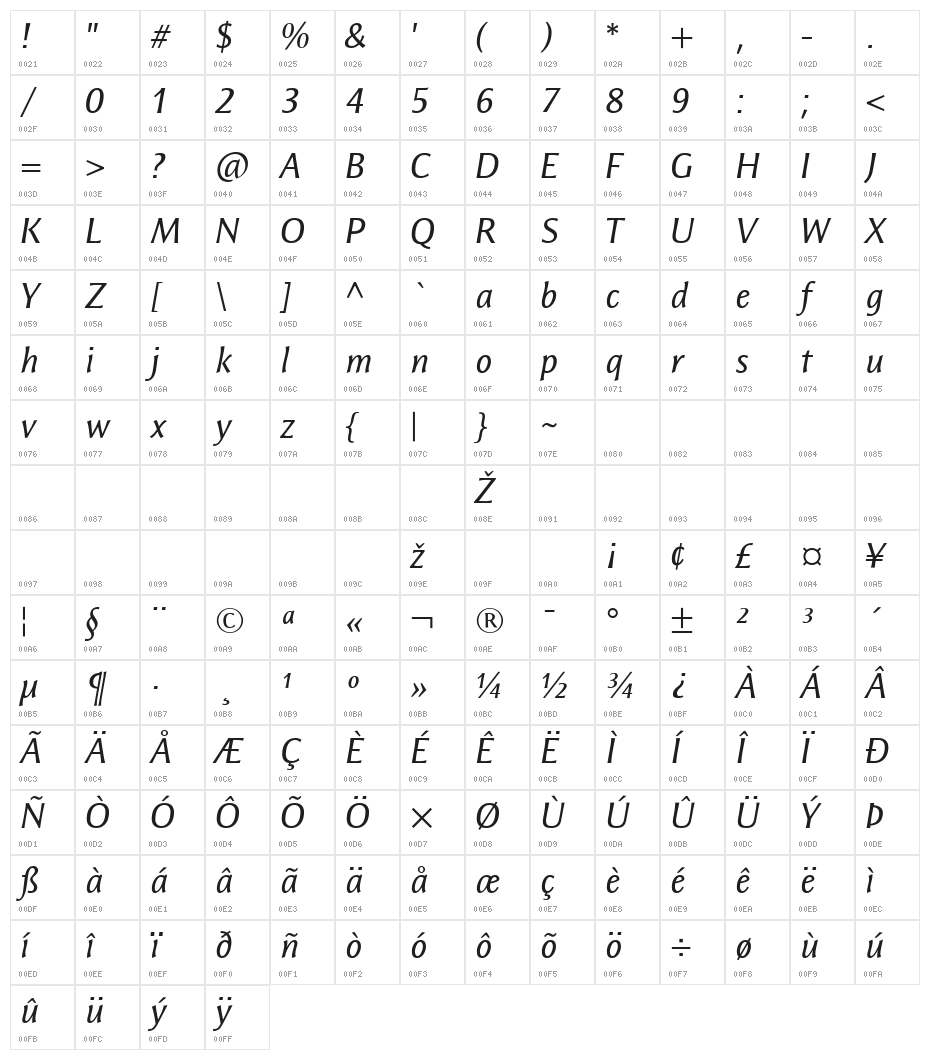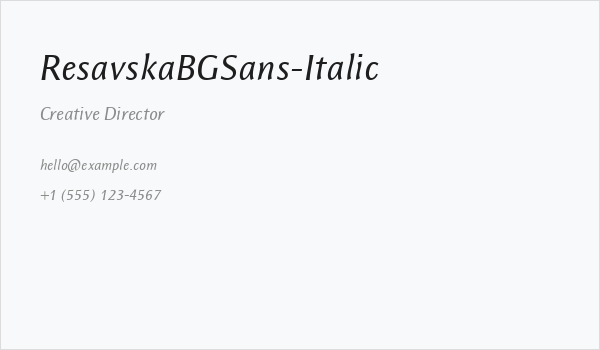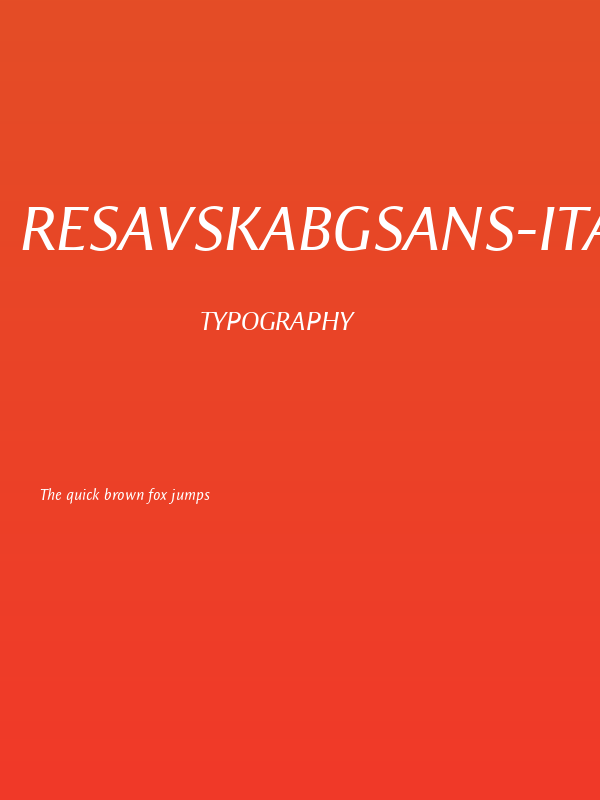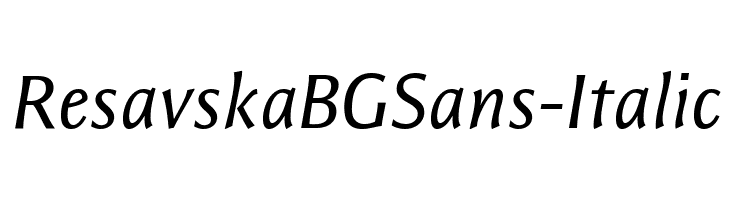
ResavskaBGSans-Italic Font
ResavskaBGSans-Italic Description
This font exhibits a sleek and modern sans-serif style with a distinct italic slant, giving it a dynamic and fluid appearance. The characters are well-proportioned, with a slight forward tilt that enhances readability while adding a touch of elegance. The strokes are consistent in width, providing a uniform look across all characters. The numerals and special characters maintain the same stylistic features, ensuring cohesion throughout. This font's clean lines and contemporary aesthetic make it versatile for various design applications.